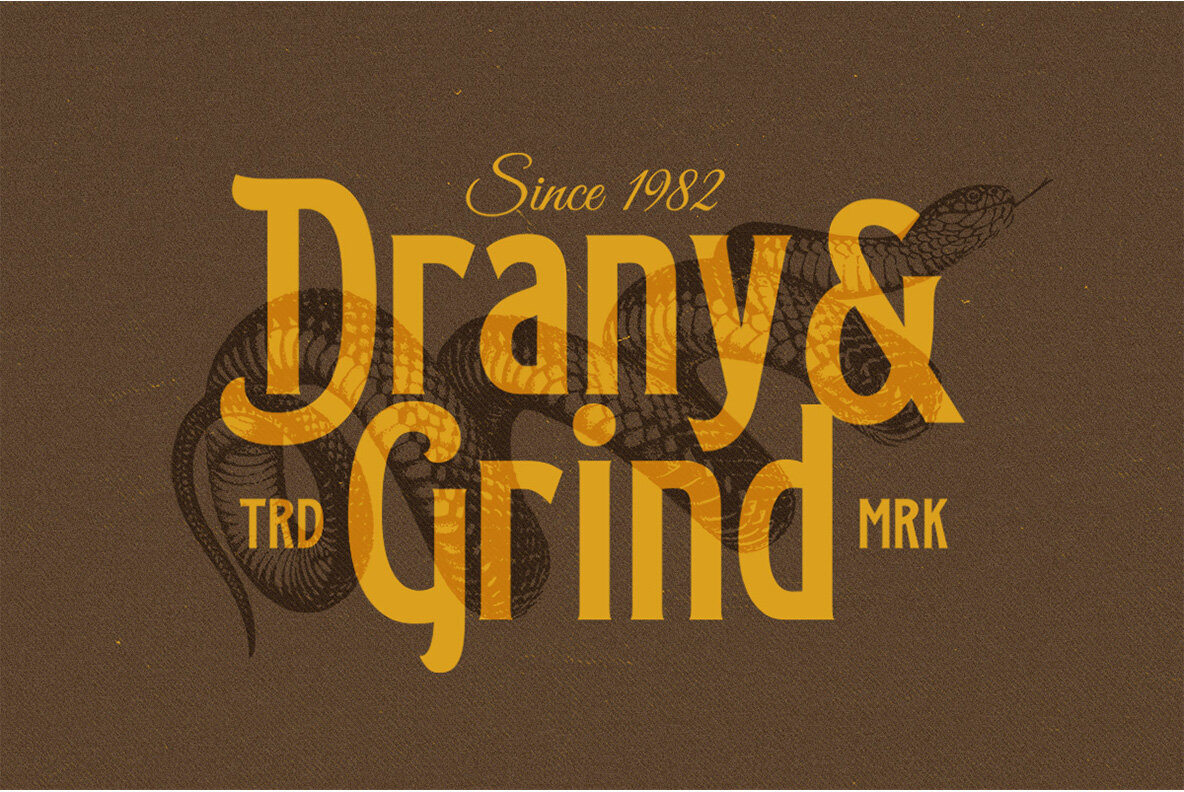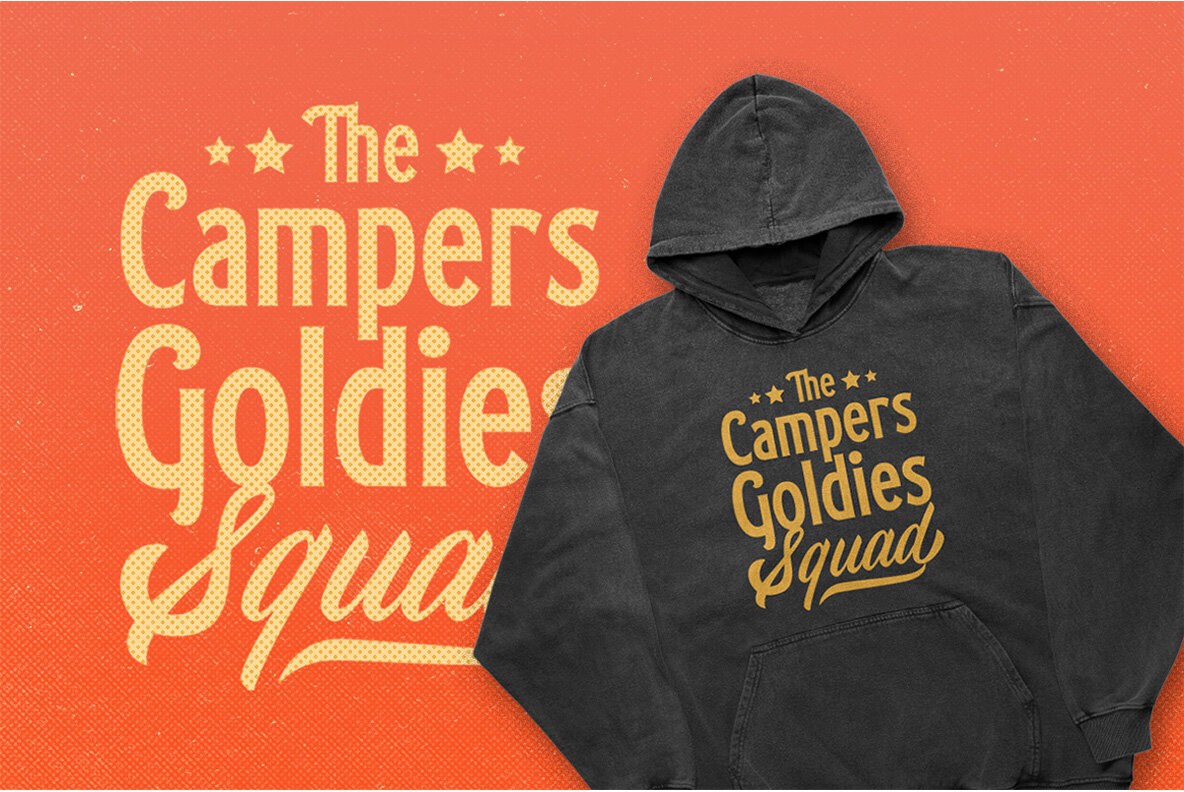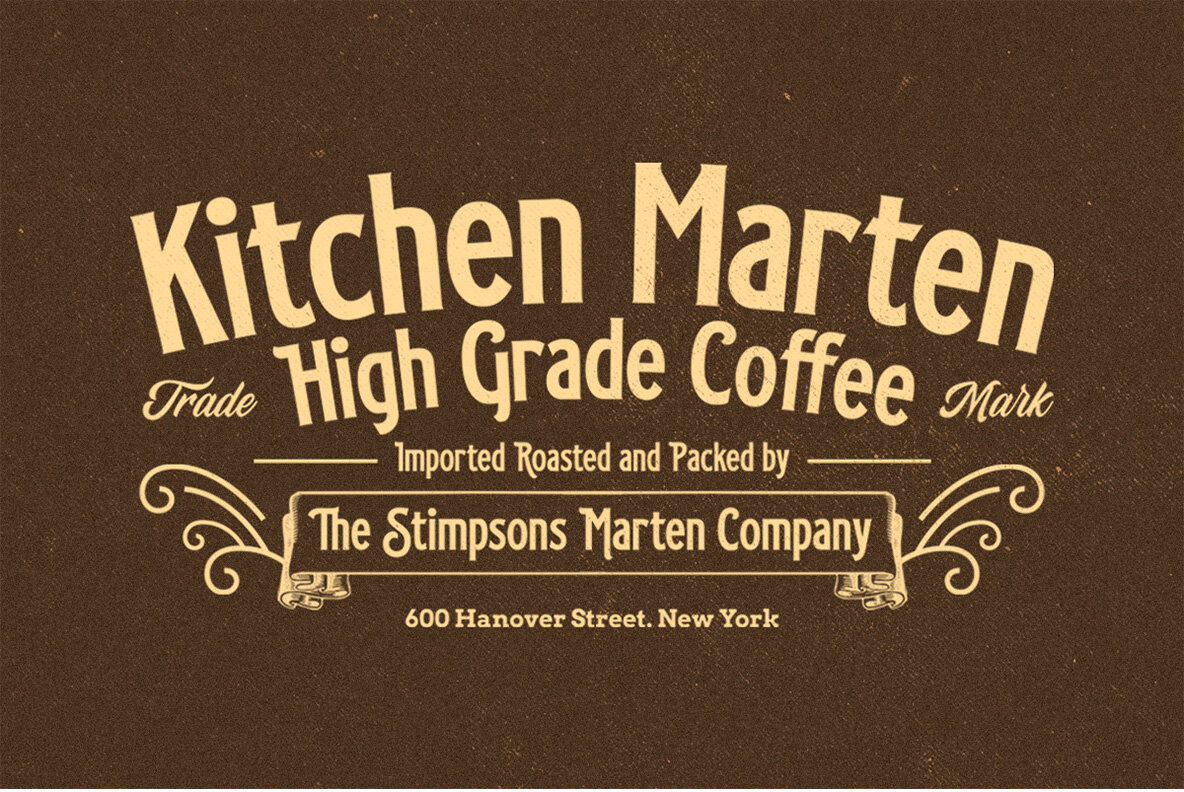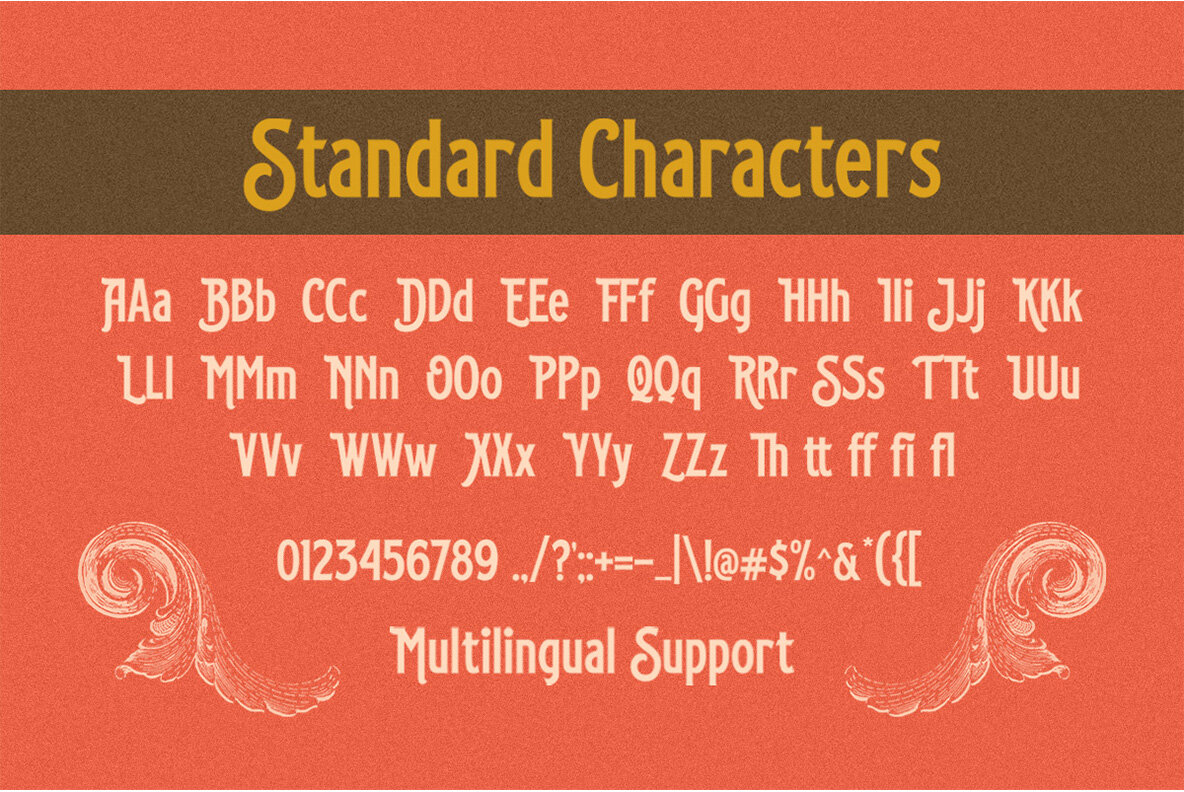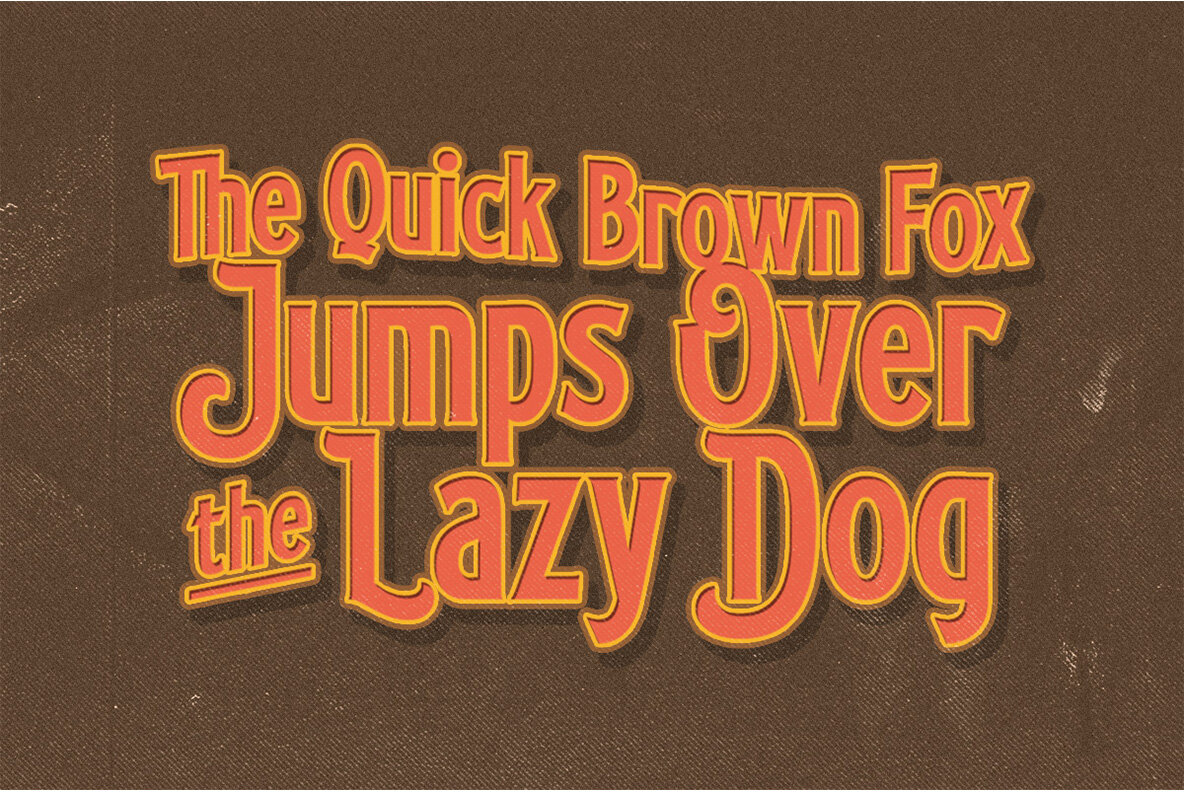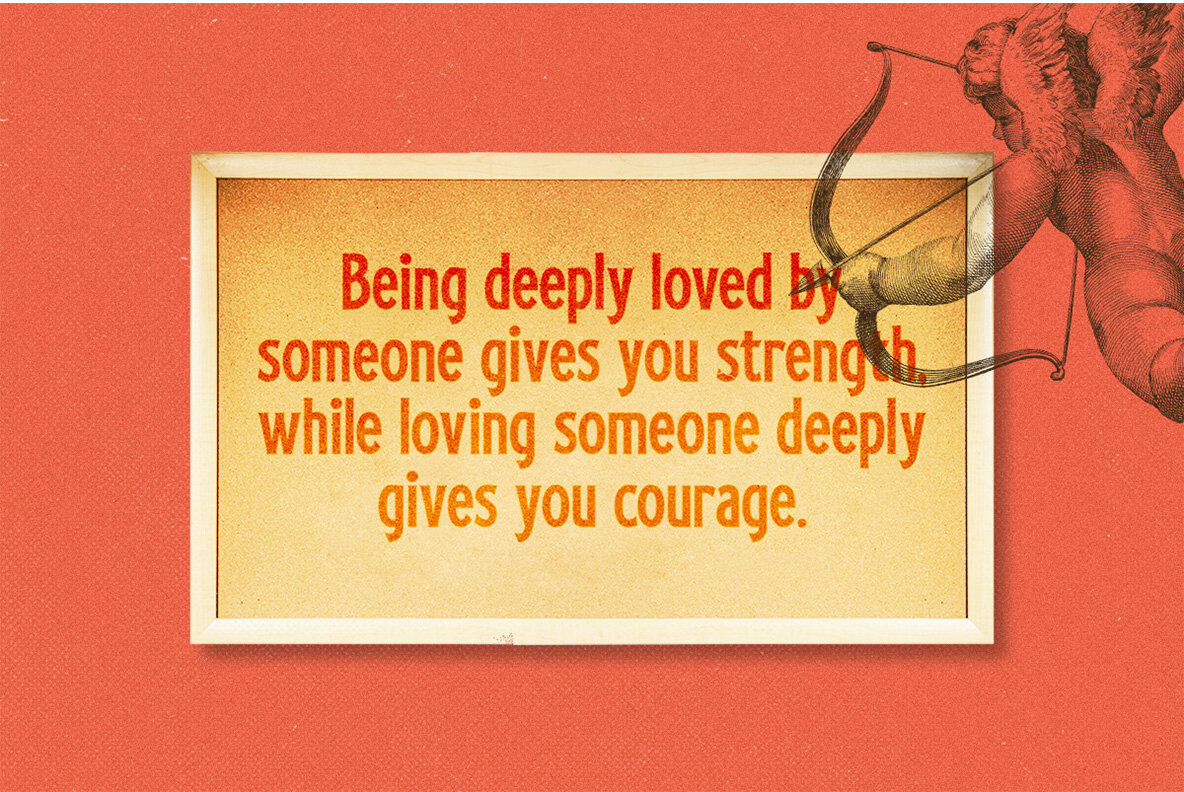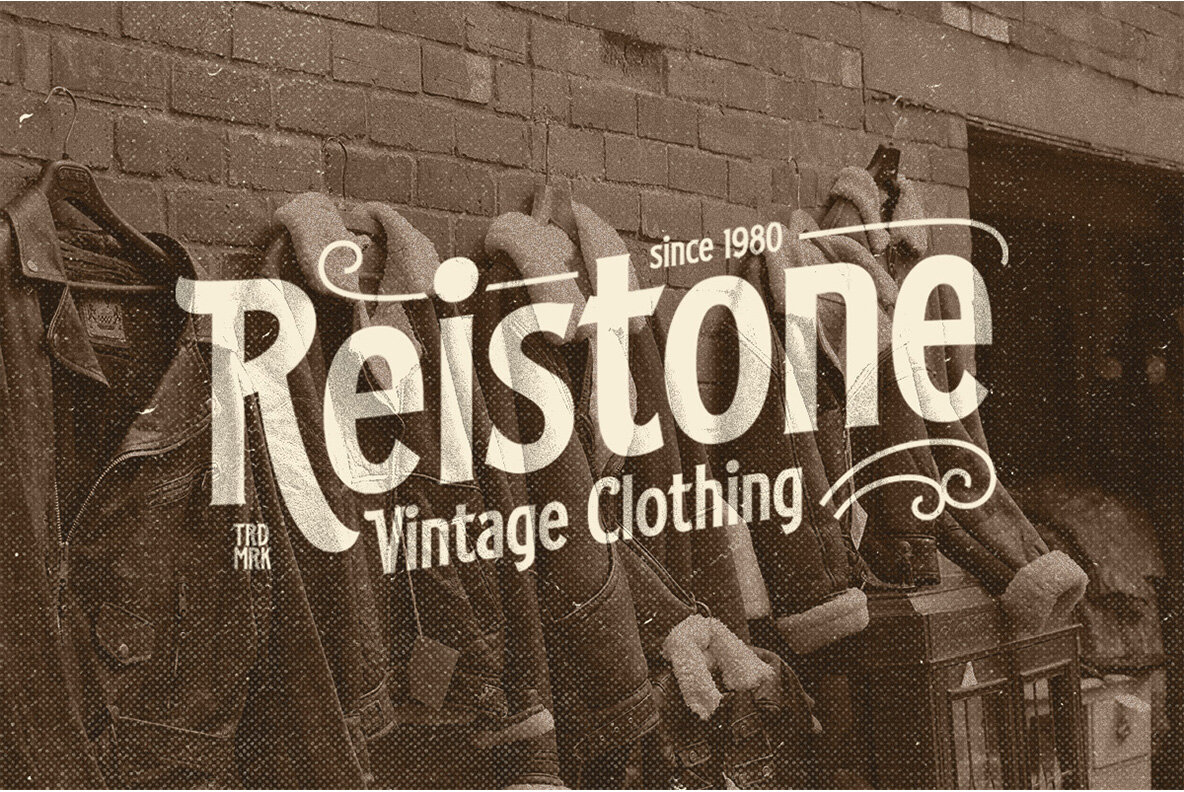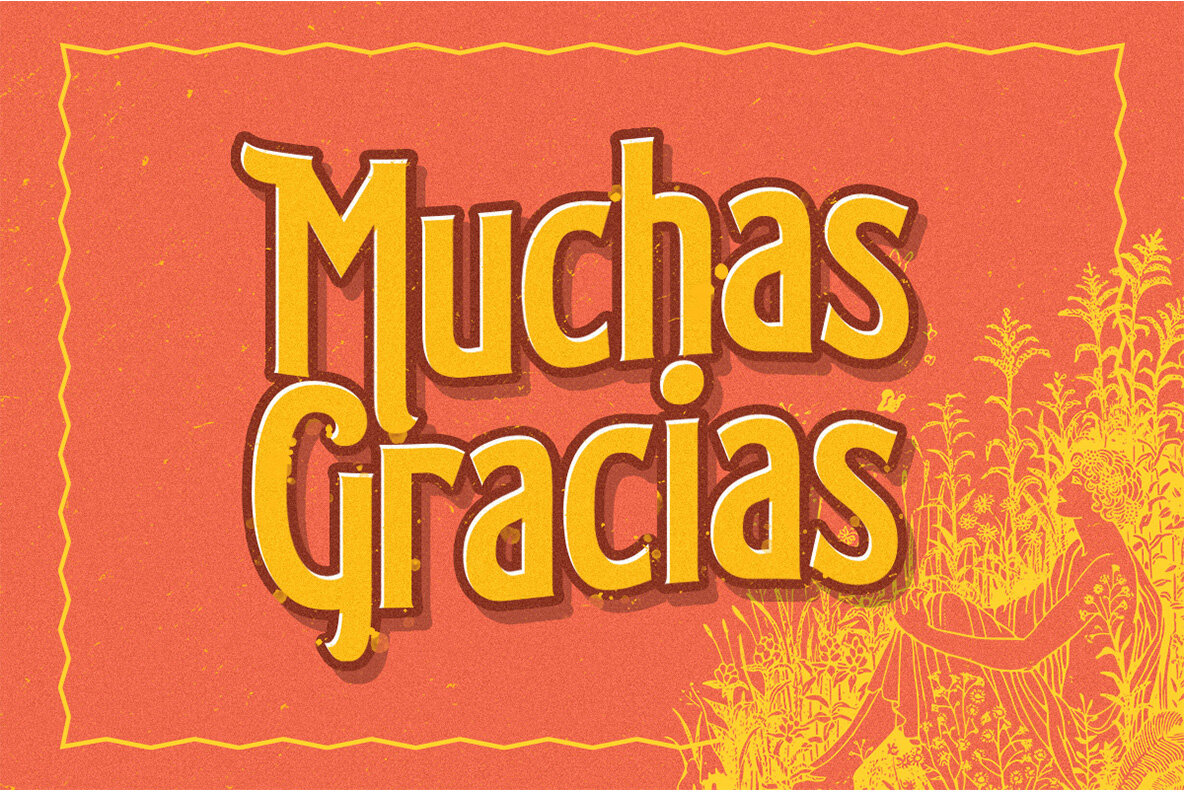
Rackmon Font
Rackmon Regular
Rackmon by Letterhend Studio serves as an evocative tribute to vintage design aesthetics. With its bold, nostalgic allure, this typeface makes an impression in logos and titles, delivering a unique visual identity. Perfect for formal applications, Rackmon seamlessly integrates into invitations, magazines, labels, and advertising, adding a touch of distinctive charm. Features: For full access to its OpenType features and stylistic diversity, it is advisable to use design software such as Adobe apps or Corel Draw. This ensures that you can effectively utilize all glyph variations to enhance your creative projects.Rackmon: Nostalgic Display Typeface